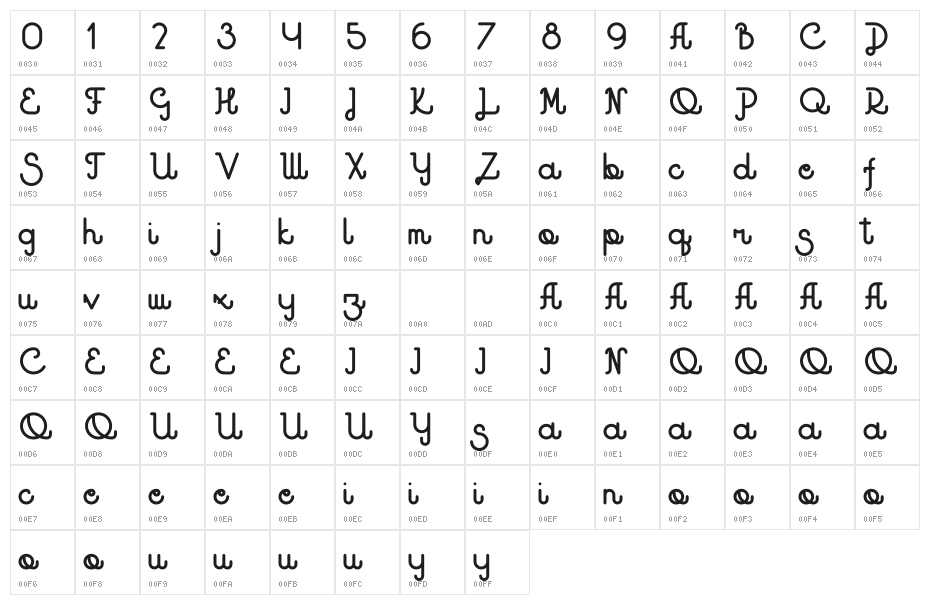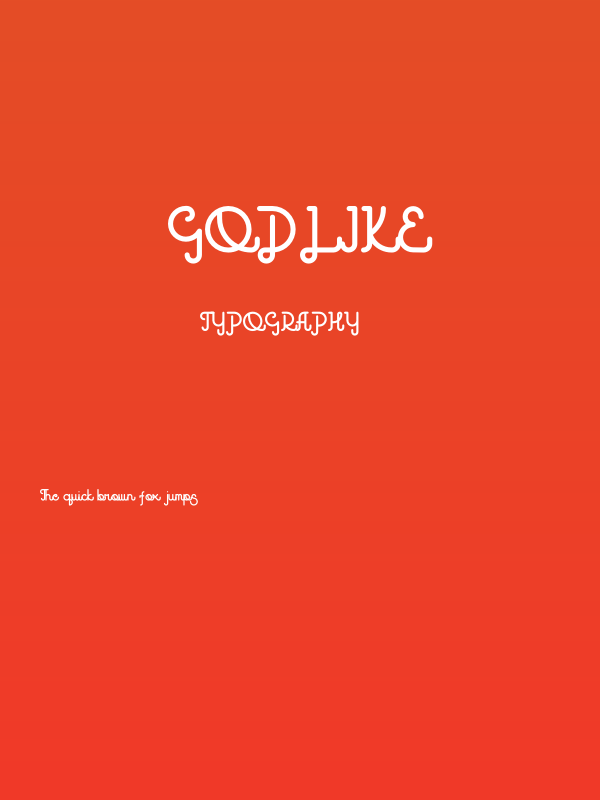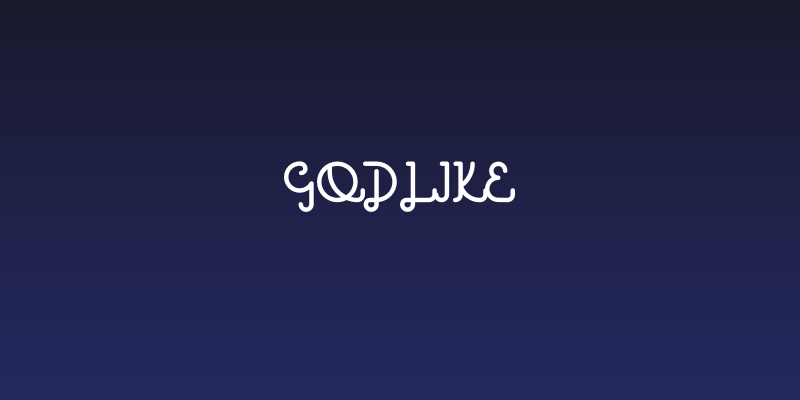
Godlike Font
Godlike Description
This font features a unique blend of modern and decorative styles, characterized by its bold and rounded letterforms. The uppercase letters exhibit a playful yet structured design, with consistent stroke widths and smooth curves. The lowercase letters maintain a similar aesthetic, offering a harmonious flow with slightly exaggerated loops and tails. The numerals are clear and bold, ensuring readability while maintaining the overall style. Special characters are creatively integrated, adding to the font's versatility. The consistent stroke thickness across all characters provides a cohesive look, making it suitable for various design applications.
| Overall Style | Modern, Decorative |
| Proposed Projects | Ideal for branding, logo design, posters, and creative headlines. |